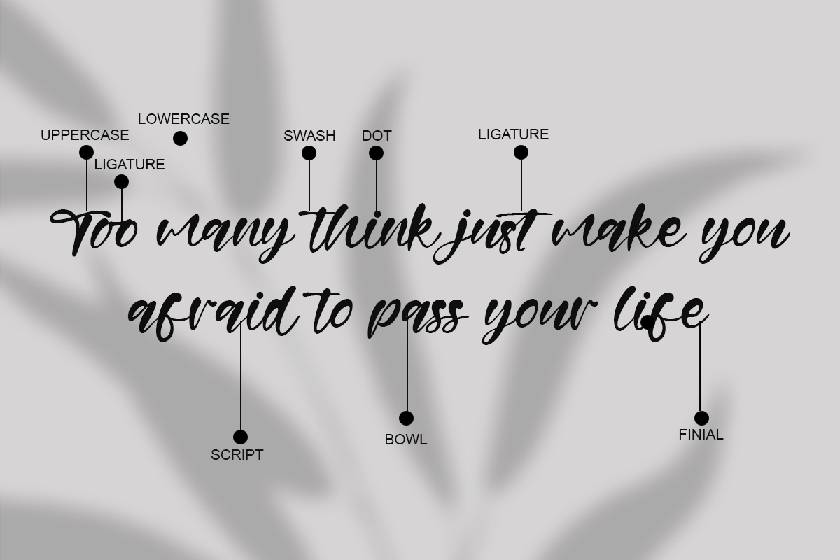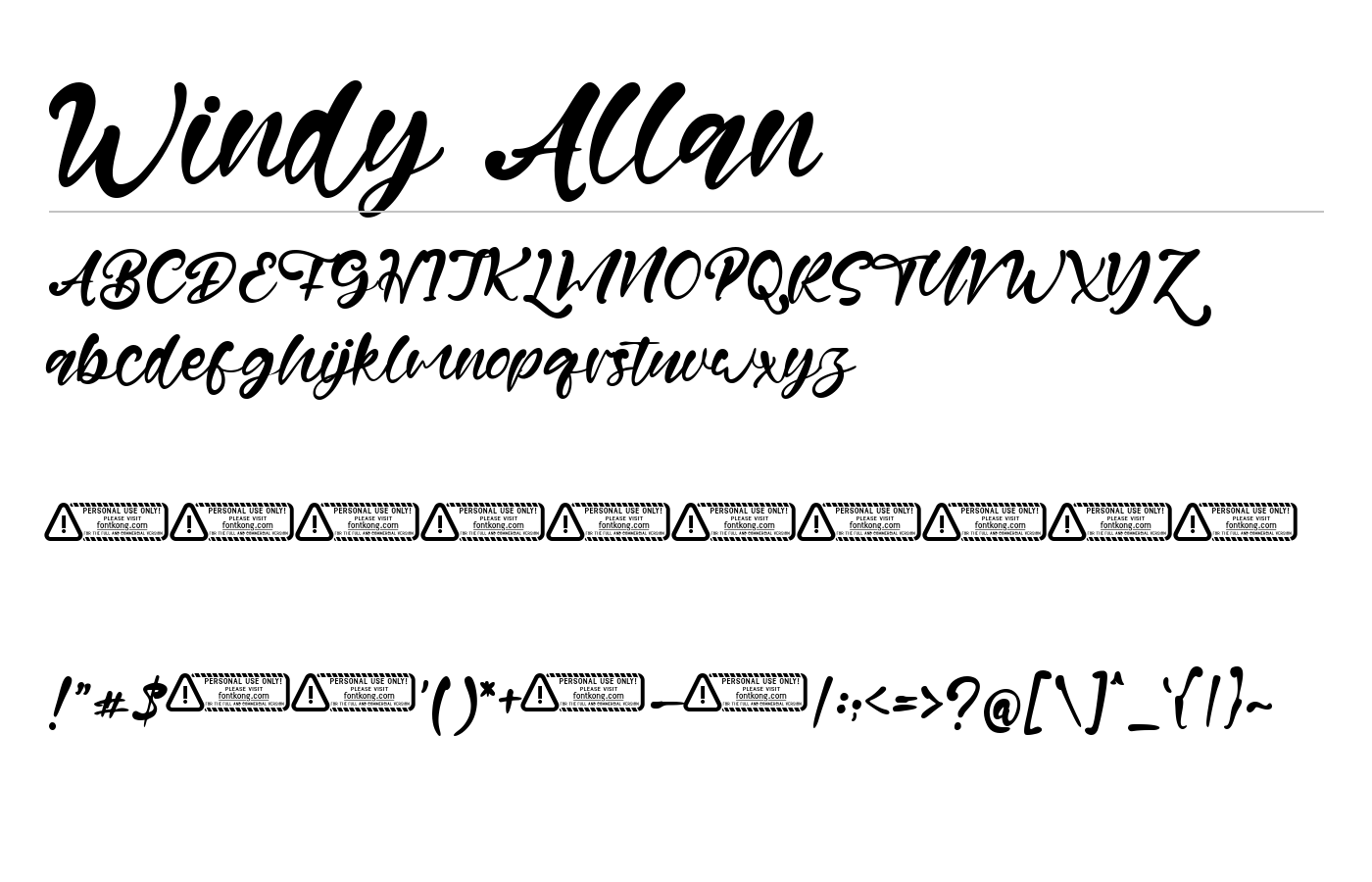
Windy Allan is a flowing script font with a lively, hand-lettered feel that combines elegance and casual charm. Its smooth, brush-like strokes and moderate contrast give it a dynamic yet approachable personality, making it ideal for branding, invitations, and creative projects that want to convey warmth and personality. This font works best in headlines, logos, and decorative uses where a personal, artistic touch is desired.
Windy Allan Font
About Windy Allan Font